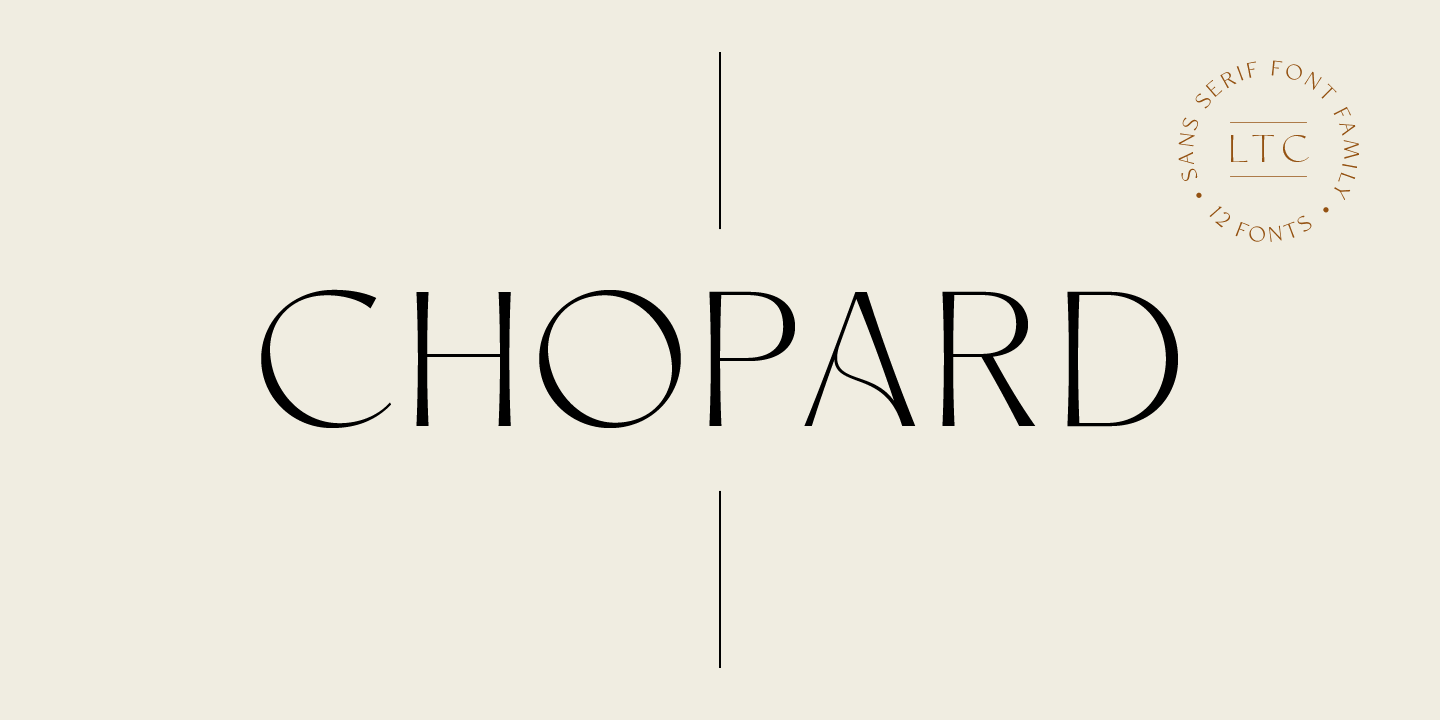
Chopard Font Free Download is an exquisite typeface, perfect for projects that demand a touch of luxury and modern sophistication. Envision it gracing elegant jewelry branding, high-end fashion editorials, exclusive event invitations, or sophisticated product packaging. Its sleek and refined aesthetic also makes it an excellent choice for website headers in luxury sectors, prestigious corporate reports, and polished magazine layouts. Whether your goal is to convey opulence, modernity, or understated class, Chopard Font offers the stylistic versatility to elevate your creative vision.
What makes Chopard Font truly exciting is its remarkable blend of contemporary design and timeless elegance. It features clean lines and a balanced structure that exude a sense of premium quality and high-fashion appeal. This isn't just another sans-serif; it's a meticulously crafted font that brings a distinct air of refinement to any text. Designers will appreciate its strong visual impact and how it can instantly transform a design, adding a layer of sophistication and a modern, high-end feel that resonates with discerning audiences. Its legibility, even in varied applications, ensures that elegance never comes at the cost of clarity.
The Chopard Font family is typically comprehensive, designed to offer broad versatility for various design contexts. You can generally expect to find a range of weights, such as Light, Regular, Medium, SemiBold, and Bold, often accompanied by their complementary italic versions. This extensive family empowers designers to create intricate typographic hierarchies, allowing for subtle emphasis or strong statements within a single project. The diverse weights ensure that Chopard Font Free Download can adapt to both delicate details and impactful headlines, making it a truly multi-purpose and valuable asset for any designer.